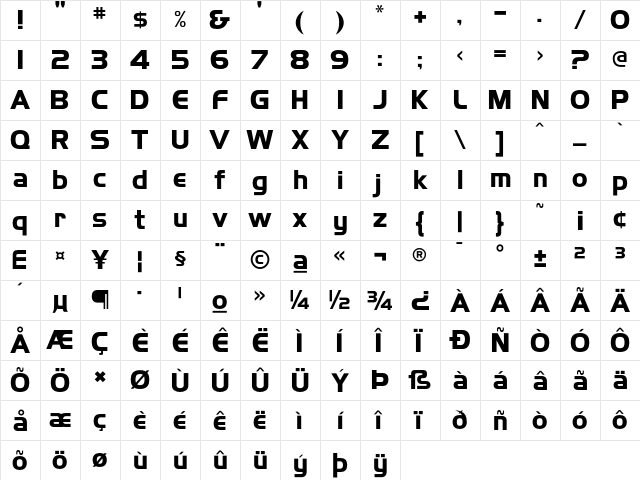
HighlandGothicFLF Bold
Design Context for HighlandGothicFLF Typeface
HighlandGothicFLF takes a clean, functional approach — its unadorned letterforms prioritise legibility and work reliably across screen and print environments. The heavy weight commands attention and anchors typographic hierarchies.
Well-suited to navigation labels, product packaging, and anywhere legibility at scale is essential.
Font Pairing: Use HighlandGothicFLF for headlines alongside a lighter-weight sans or serif for body copy to establish clear visual hierarchy.
Pro Tip: Use HighlandGothicFLF for UI labels, navigation, and short-form body copy where clean legibility is the priority.